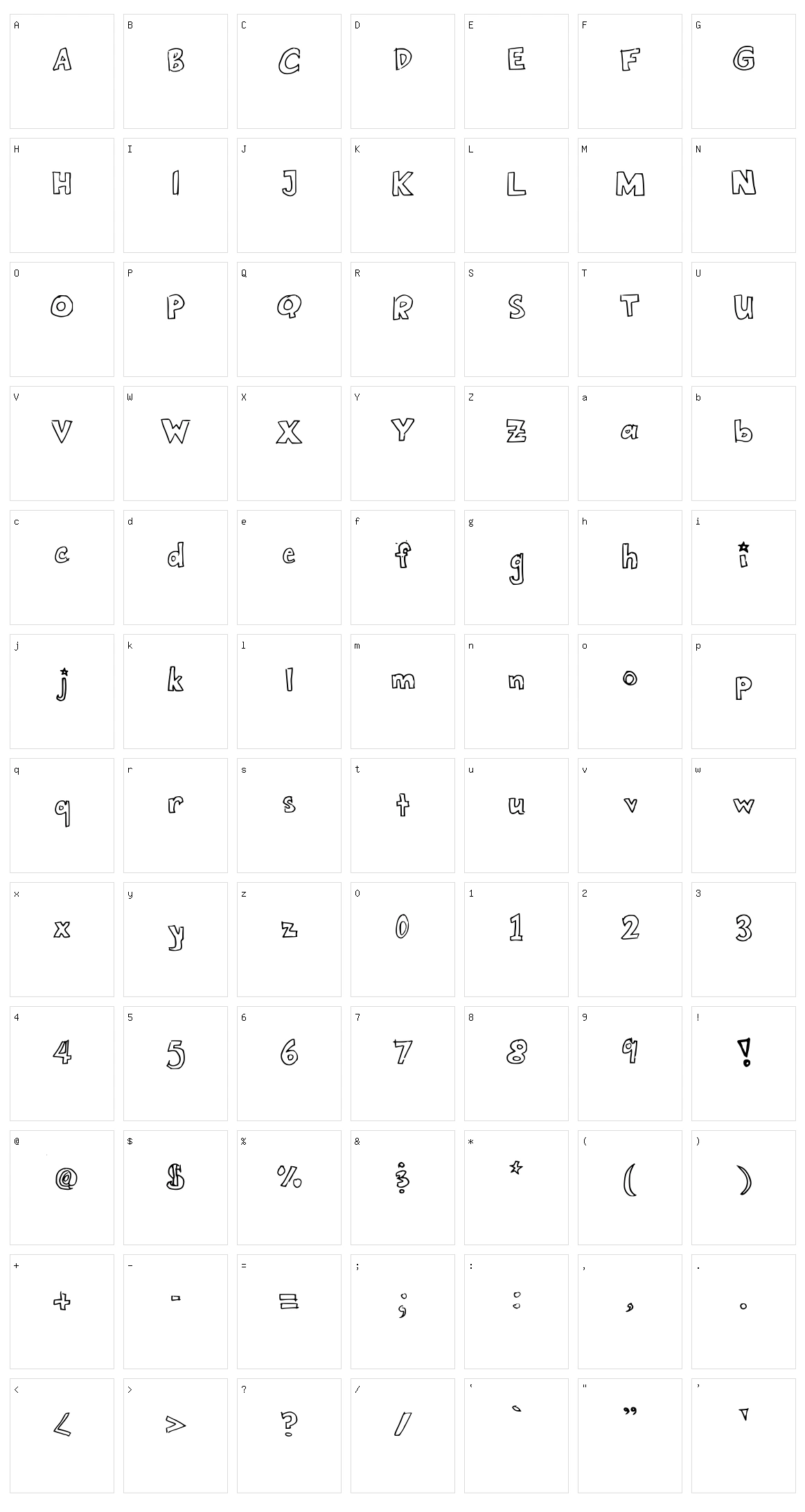
The free font Bubbles Make Me Happy is carefully designed by Patricia Morreale, showcasing a thoughtful balance of creativity and usability and falls under the Cartoon font style. When you download the ZIP file, it contains only 19.5 KB of font files, making it lightweight and quick to download. Please review the license details below to understand permitted usage and distribution rights. If license information is not available, we recommend using this font for personal projects only or contacting the author directly for commercial usage permissions.